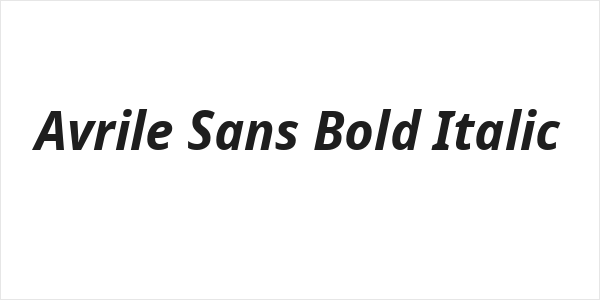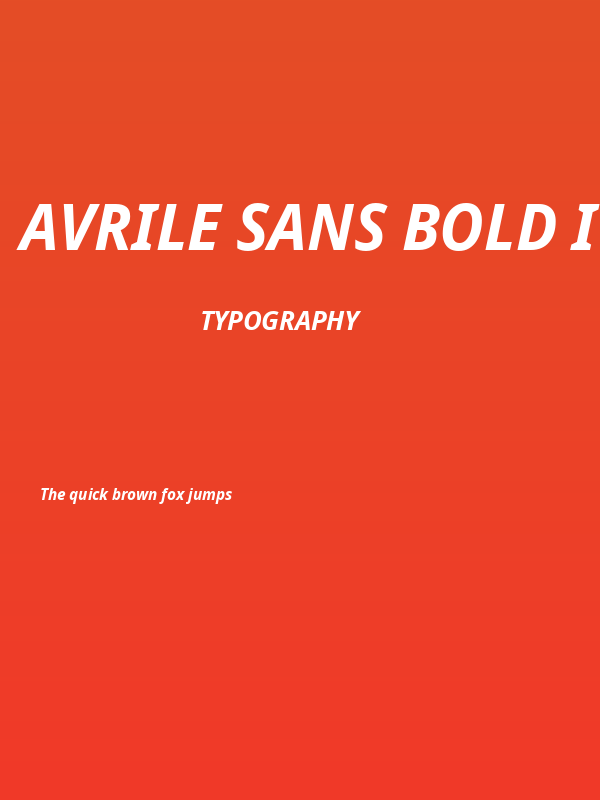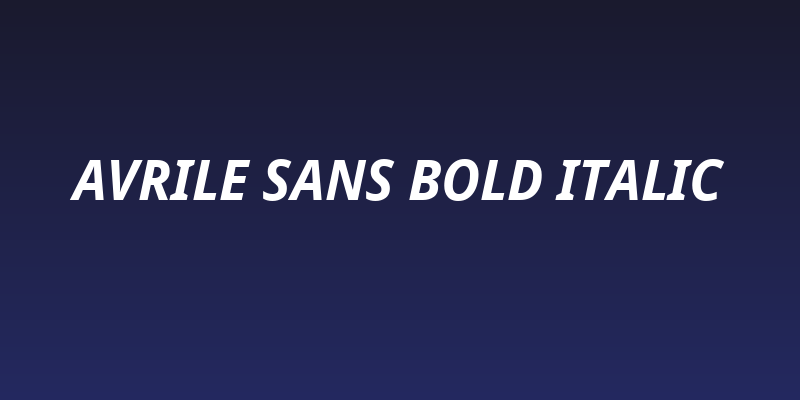
Avrile Sans Bold Italic Font
Avrile Sans Bold Italic Description
This font exhibits a clean and modern sans-serif style with a bold and italicized appearance. The characters are well-defined with a slight slant, providing a dynamic and energetic feel. The uppercase and lowercase letters maintain a consistent weight, contributing to its bold presence. The numerals are clear and easily distinguishable, making them suitable for various applications. Special characters are included, enhancing its versatility. The overall design is sleek and contemporary, suitable for projects that require a strong visual impact.
| Proposed Projects | Ideal for branding, advertising, headlines, and digital content that demands attention. |